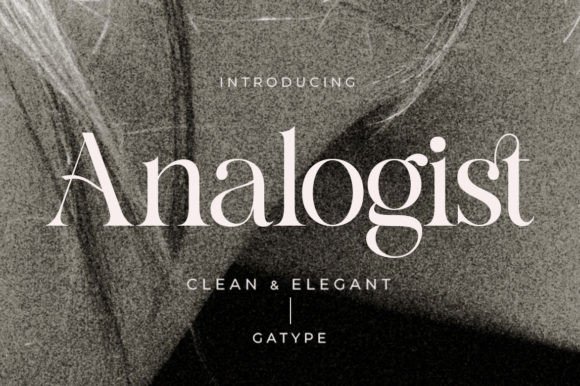
The Analogist Font: A Modern Serif Game-Changer for Designers
I’ll never forget the design project that led me to discover the Analogist font. I was working on a branding project for a fashion magazine, and my client asked for a unique, modern serif font that would make their title stand out. I scoured the internet, tried countless fonts, but nothing seemed quite right. That was until I stumbled upon Analogist. Its distinctive look and customizable features won me over, and it’s been a staple in my design toolkit ever since.
An Honest Review of Analogist
- ✨ Unique and modern serif design that’s perfect for fashion and editorial projects
- ✅ Highly customizable with OpenType features and stylistic alternates
- ✅ Great for logos, branding projects, and attention-grabbing headings
- ✨ Works beautifully on various design materials, from digital screens to print
While Analogist is an amazing font, there are a few things to keep in mind:
- ⚠️ Some users might find the font a bit too condensed for body text, but it’s perfect for headings
- 🤔 Limited availability of certain glyphs, but the font still offers a wide range of characters
The Story Behind Analogist
While I couldn’t find any information on the exact design story behind Analogist, it’s clear that the font was created with modern designers in mind. The font’s unique look and customizable features suggest a thoughtful approach to typography, likely inspired by the needs of contemporary designers.
Q: What type of projects is Analogist best suited for?
A: Analogist is versatile and works well for various design projects, including logos, fashion and editorial design, branding projects, packaging, magazine titles, advertisements, and more.
Q: Is Analogist a difficult font to learn?
A: Not at all! Analogist is relatively easy to use, especially for those familiar with modern serif fonts. Its intuitive design and OpenType features make it simple to get started.